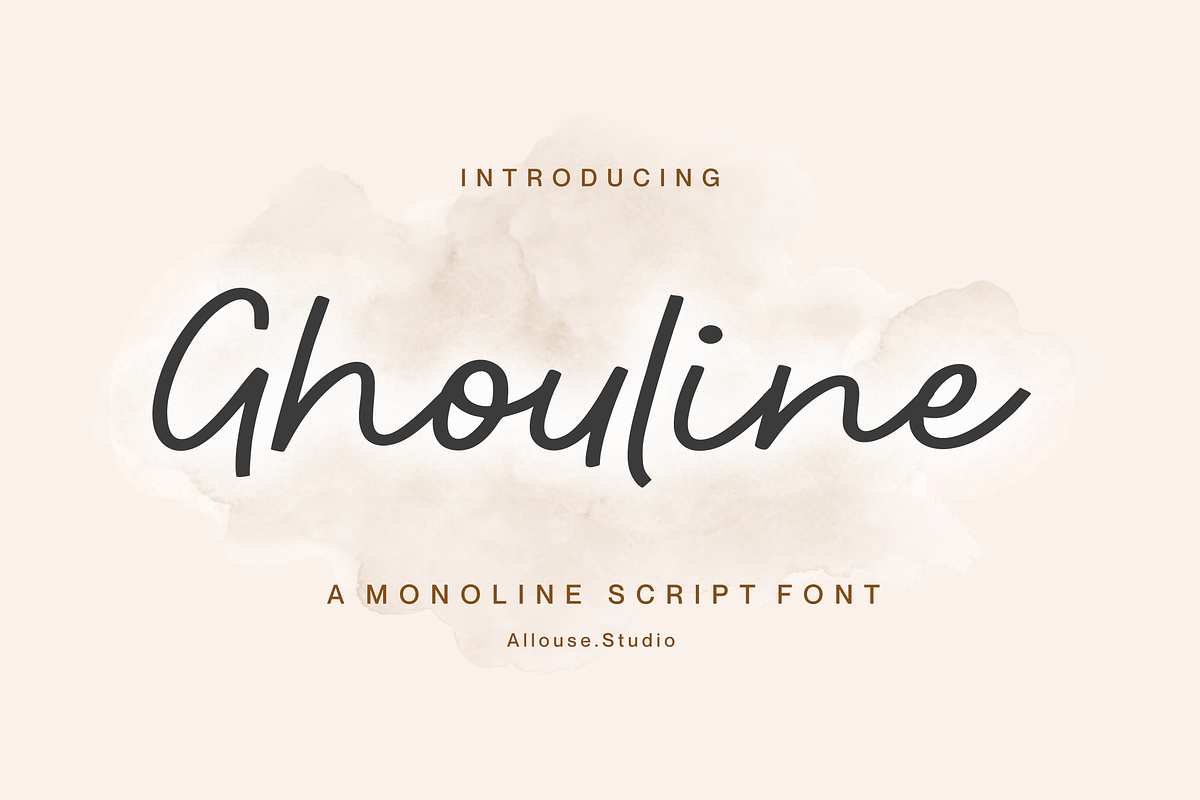
Ghouline A Monoline Script Font Free Download
Ghouline – A Monoline Script Font Free Download
Ghouline – A Monoline Script Font Free Download is a sleek, elegant handwritten typeface featuring consistent monoline strokes and a smooth, flowing rhythm. Perfect for logos, signatures, branding, wedding stationery, social media graphics, and lifestyle designs, Ghouline combines minimalism with a personal, handcrafted feel.
Its clean, connected letterforms make Ghouline – A Monoline Script Font Free Download both versatile and stylish—ideal for modern projects that need a subtle yet sophisticated handwritten touch. Whether you're designing for fashion, beauty, or personal branding, this font adds just the right amount of charm and professionalism.